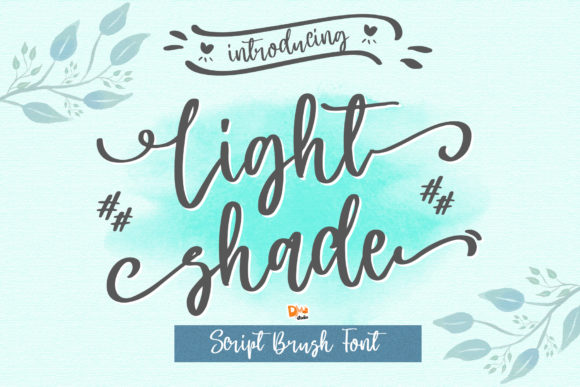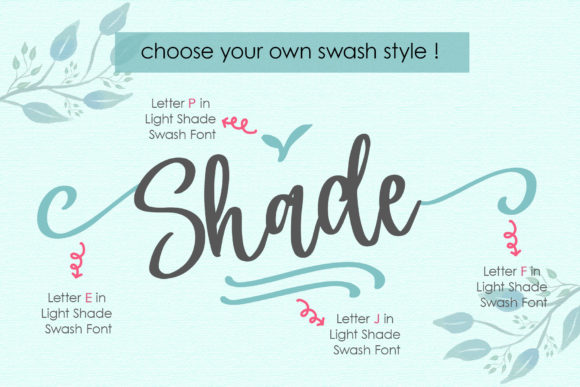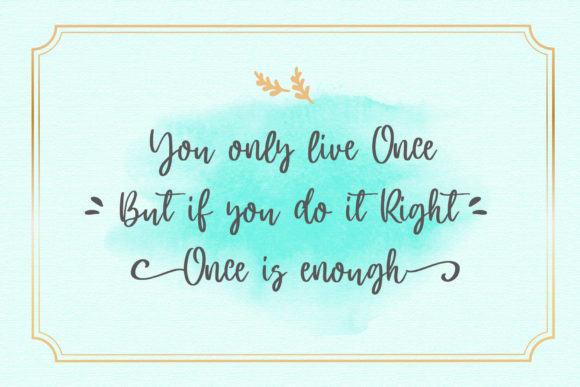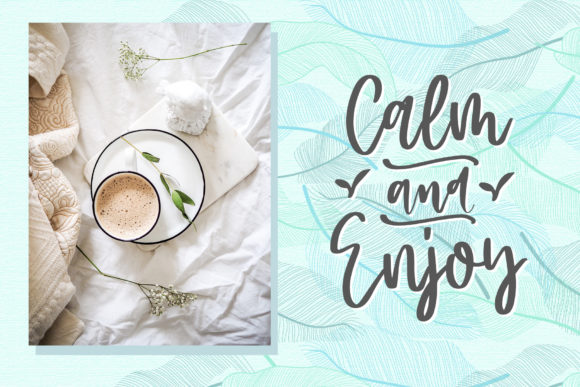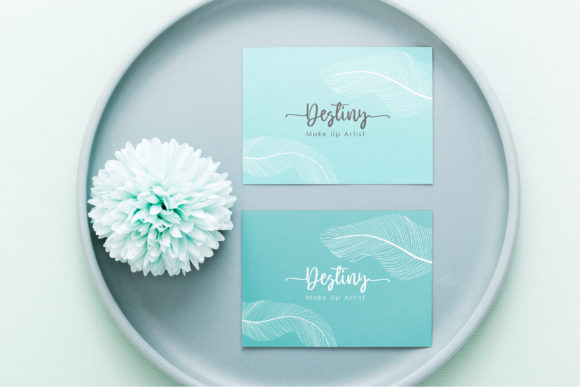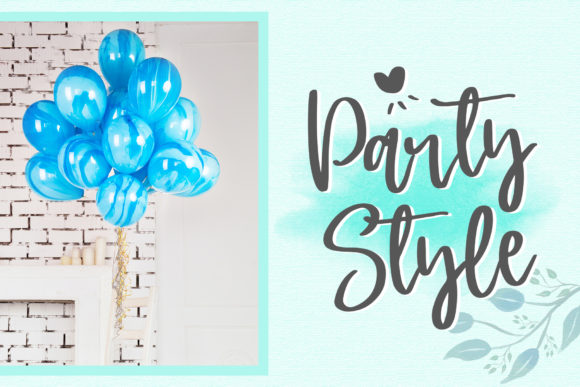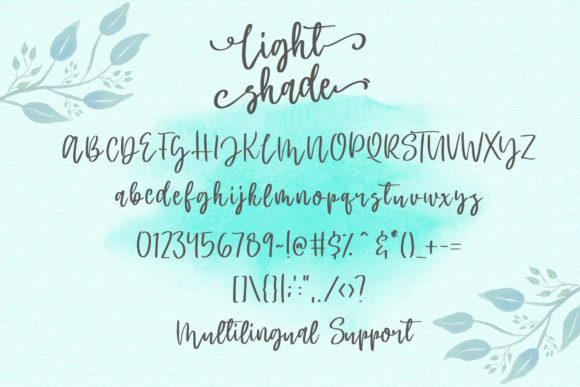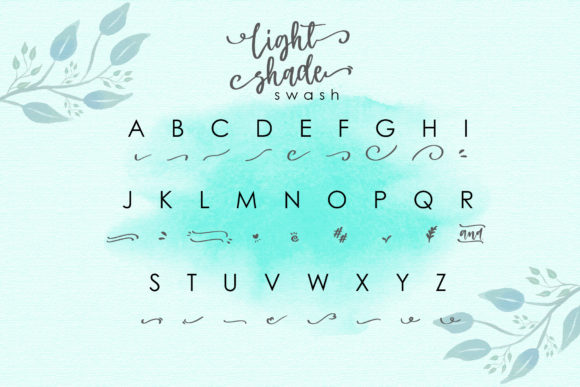
Light Shade Font
About Light Shade Font
“Light Shade” is a font that exudes an air of elegance and sophistication, capturing the essence of timeless beauty while embracing modern sensibilities. Its exquisite handwritten style is a testament to meticulous design, making it a font that is destined to become a cherished favorite. With its seamless blend of classic calligraphic influences and contemporary freshness, “Light Shade” elevates your projects to the pinnacle of artistic excellence.
The allure of “Light Shade” lies in its ability to bridge the gap between tradition and modernity. Its graceful strokes and delicate curves pay homage to the artistry of calligraphy, while its contemporary touches breathe new life into its form. As you immerse yourself in its beauty, you’ll discover that every letter carries a sense of purpose and intention, transforming your projects into pieces of art that resonate with depth and meaning.
Embracing “Light Shade” opens up a world of creative possibilities. Whether adorning wedding invitations with an air of sophistication, adding a touch of elegance to thank you cards, infusing quotes and greeting cards with timeless beauty, or lending logos and business cards a distinctive allure, this font transcends the boundaries of design, leaving an indelible mark of excellence.
Allow “Light Shade” to be the catalyst that propels your projects to new heights. Fall in love with its graceful charm and impeccable craftsmanship, and witness as it transforms your creative endeavors into expressions of true artistry. With “Light Shade,” you’re not just using a font; you’re embracing a masterpiece that breathes life and beauty into every design it graces.